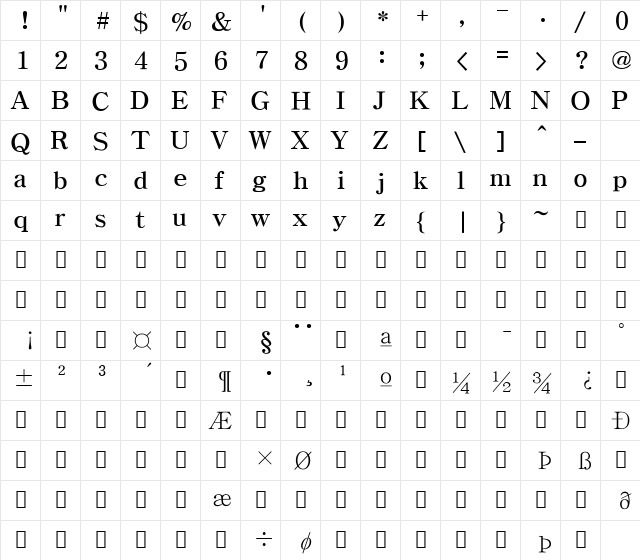
HYMyeongJo-Extra Regular
Design Context for HYMyeongJo-Extra Typeface
HYMyeongJo-Extra is a composed and adaptable typeface that performs quietly and consistently across a wide range of design contexts.